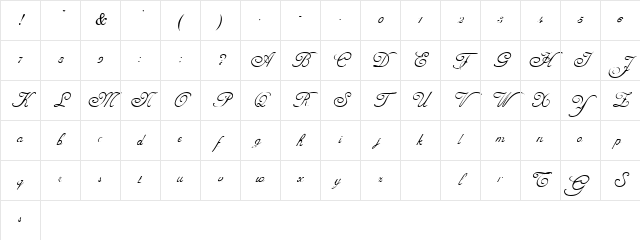
AdineKirnberg Regular Free Font
AdineKirnberg Regular
Design Context for AdineKirnberg
AdineKirnberg is a composed and adaptable typeface that performs quietly and consistently across a wide range of design contexts.